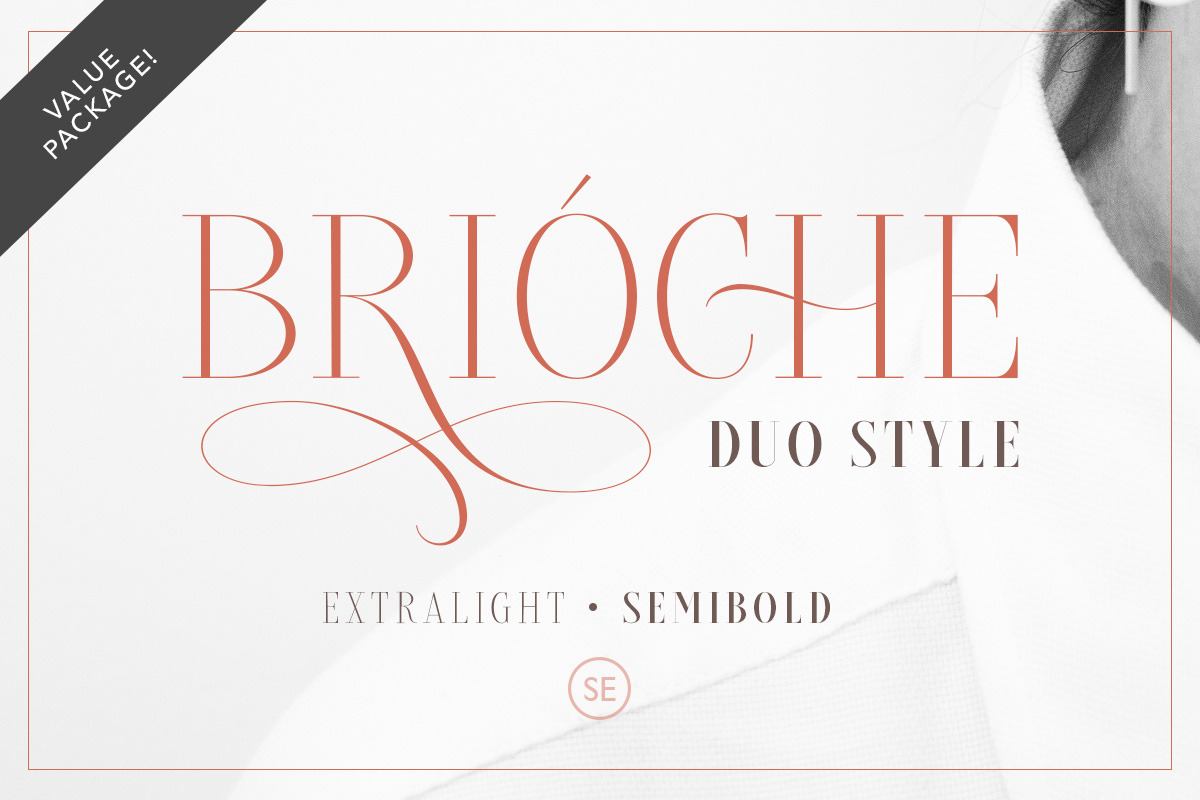
Elegant, versatile, and beautifully modern, Brioche Font - (ExtraLight & SemiBold) Free Download offers a refined balance between lightness and boldness. With both ExtraLight and SemiBold weights, this font is perfect for a wide range of design projects, from minimalistic branding to dynamic editorial layouts, headlines, packaging, and more.
The ExtraLight weight provides a delicate, clean feel, while the SemiBold weight gives you a slightly stronger presence for impactful headings and key text. Whether you’re working on web design, logos, or print materials, Brioche brings clarity and sophistication to every letterform.